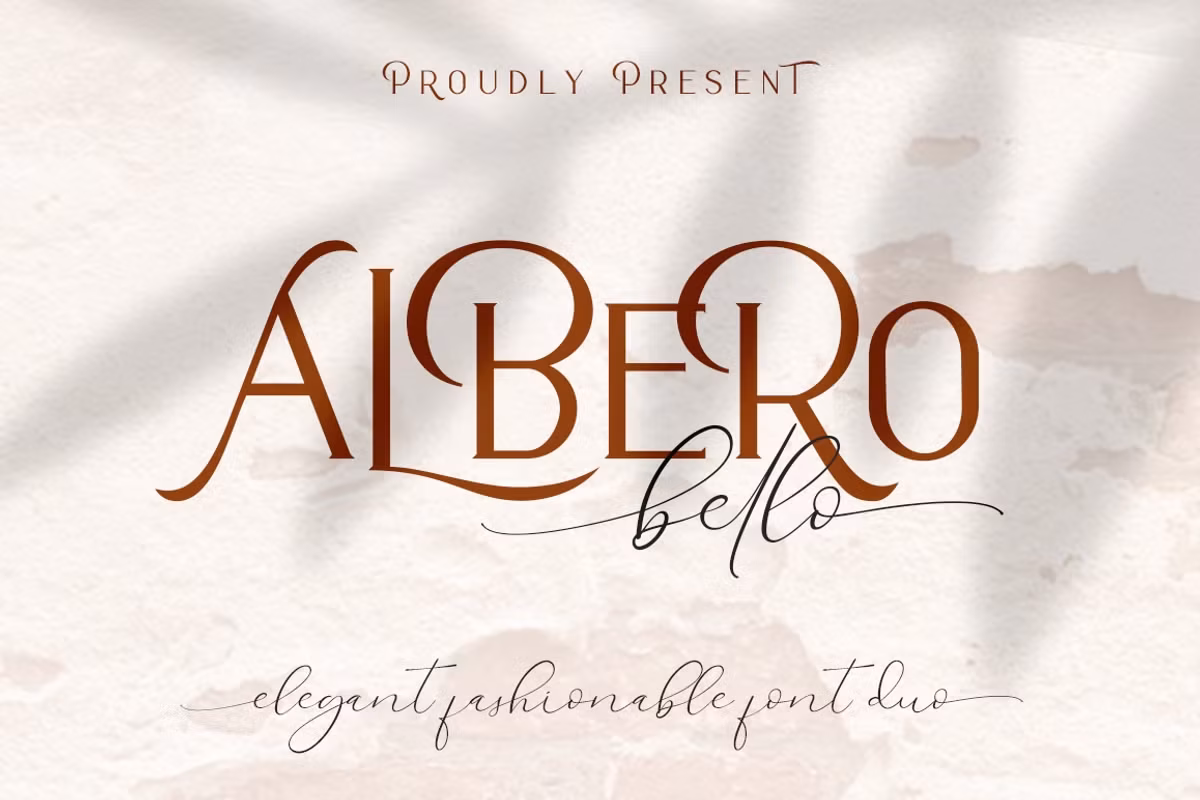
Alberobello // Fashionable Font Duo Free Download
Looking to add a touch of elegance and fashion-forward flair to your design projects? Discover Alberobello // Fashionable Font Duo Free Download, a stylish and modern font combination perfect for branding, social media graphics, packaging, and editorial design. Its clean lines and versatile pairing make it ideal for fashion blogs, beauty products, and upscale advertising materials.
This duo font set includes both a sleek serif and a chic script, offering you creative freedom to mix and match styles with ease. Whether you're working on a logo or a high-end brochure, Alberobello will help you achieve a polished and contemporary look.